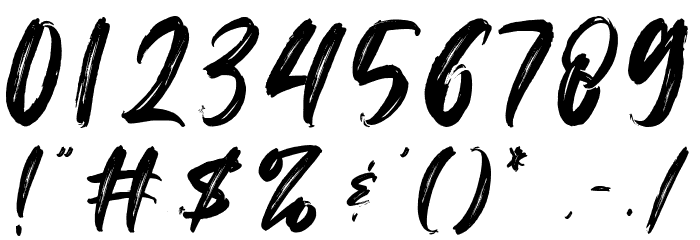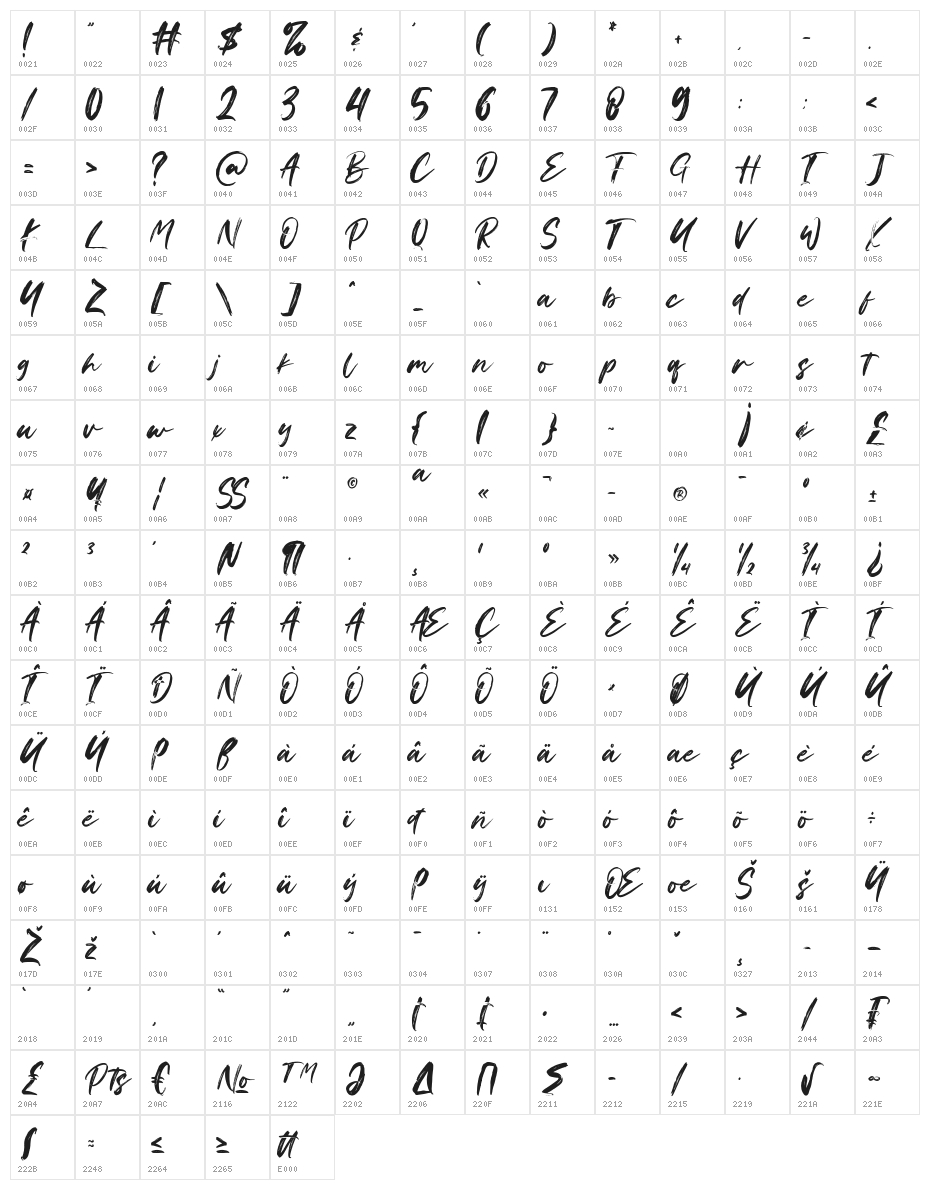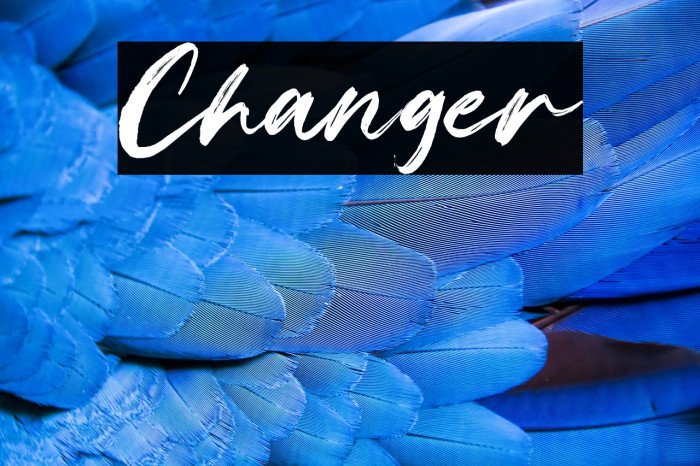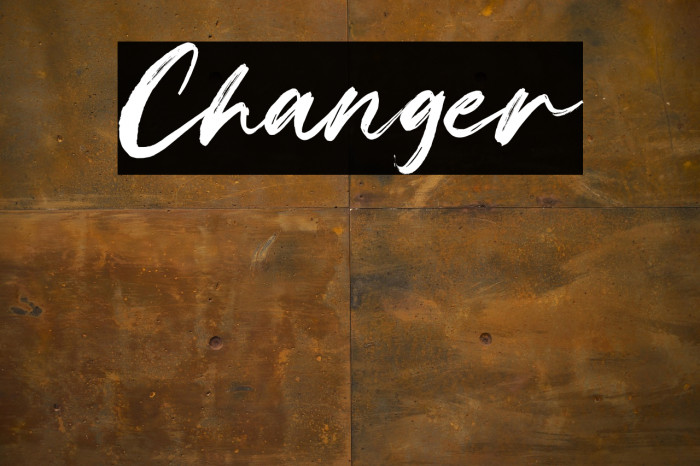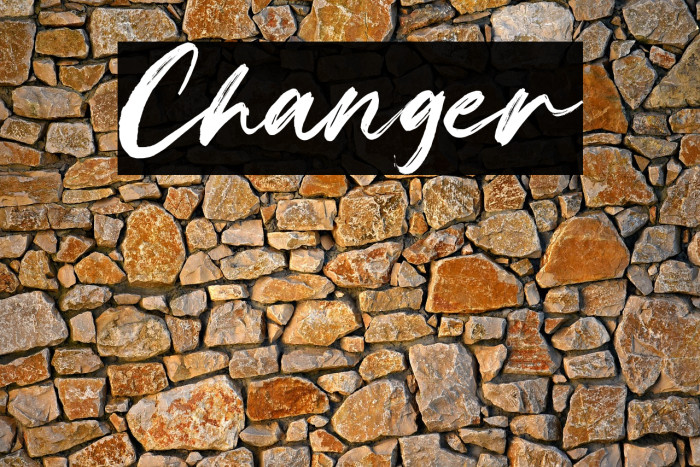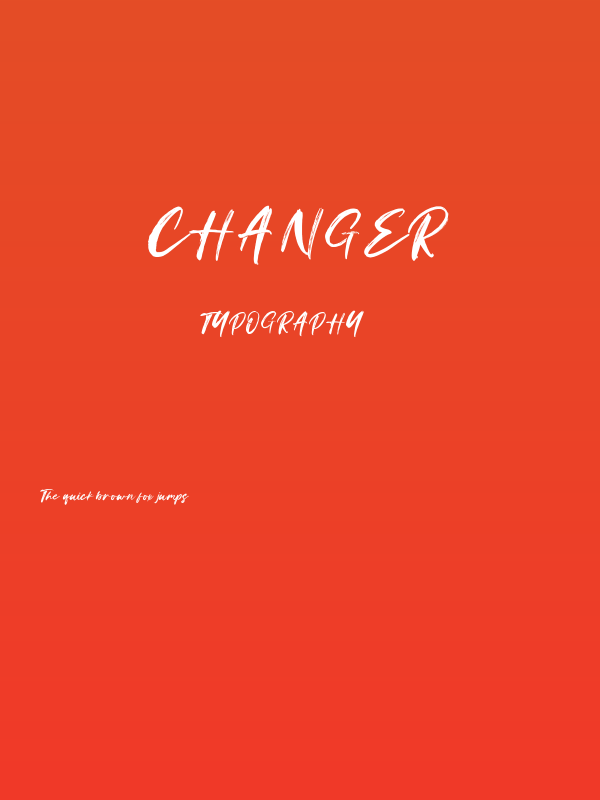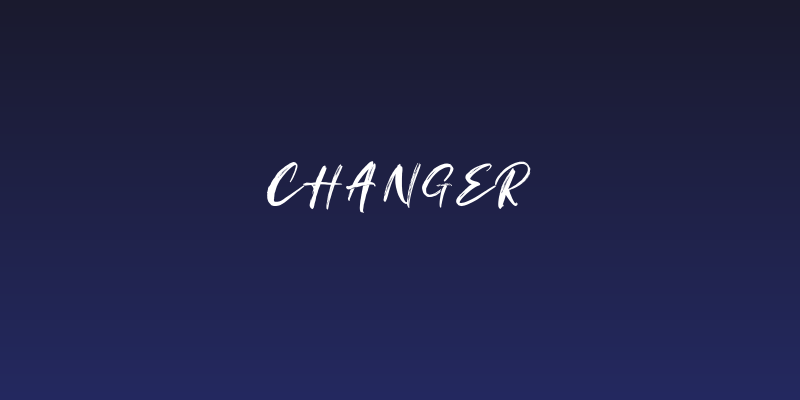
Changer Font
Changer Description
This font exhibits a bold and expressive brush script style, characterized by its dynamic and fluid strokes. The letters have a hand-painted appearance, with varying thickness that adds a sense of movement and energy. The uppercase and lowercase letters are well-balanced, maintaining a consistent flow throughout. The numbers and special characters follow the same artistic style, ensuring a cohesive look across all elements. This font is ideal for projects that require a personal and artistic touch, such as invitations, posters, or branding materials.
| Proposed Projects | Ideal for invitations, posters, branding materials, and any project needing an artistic touch. |